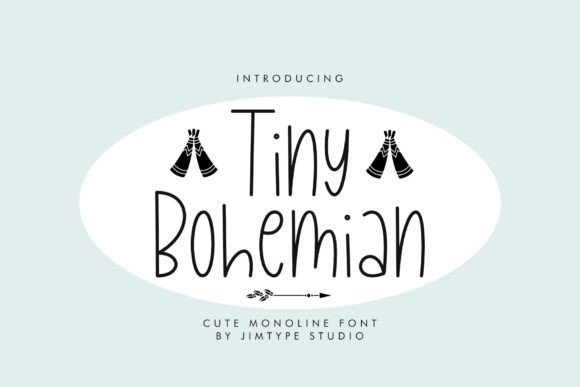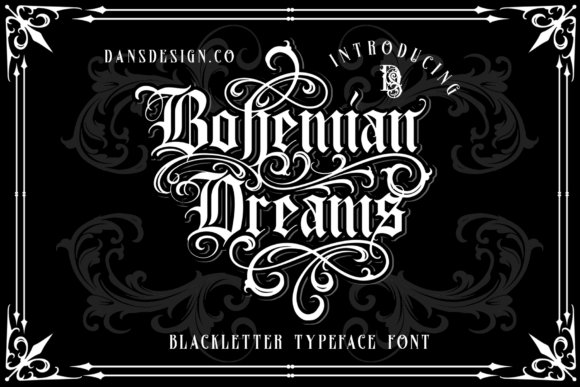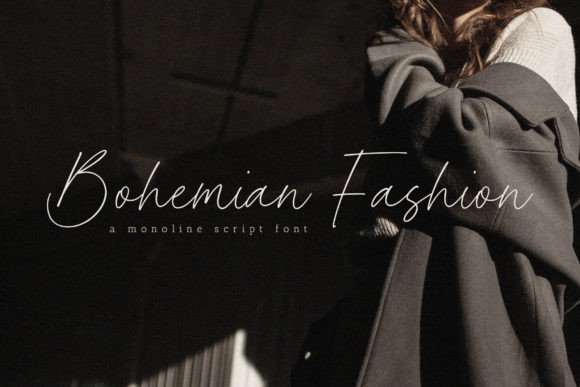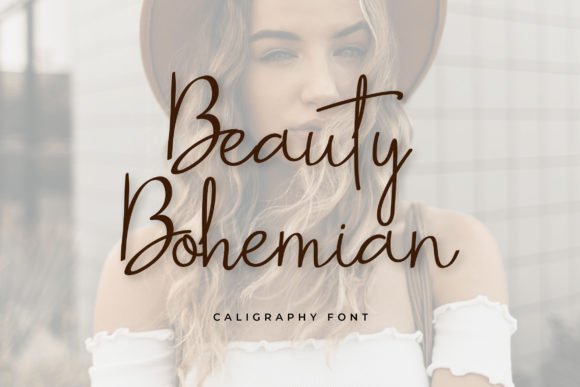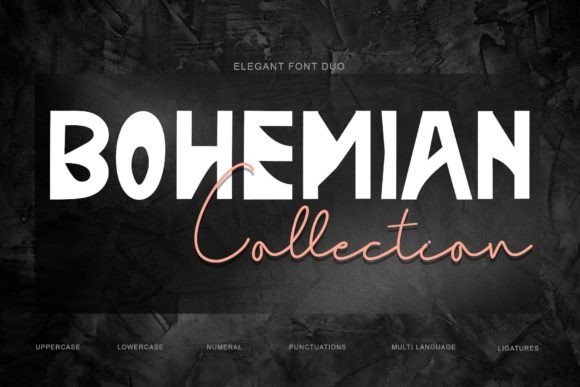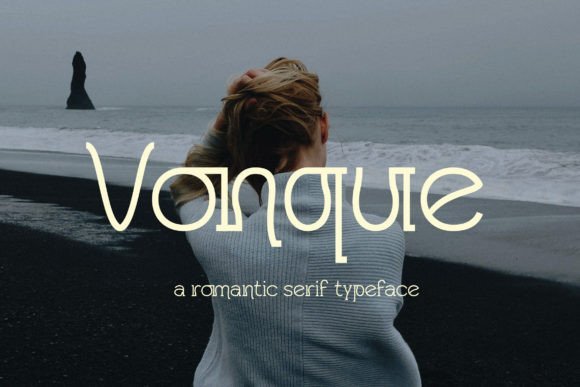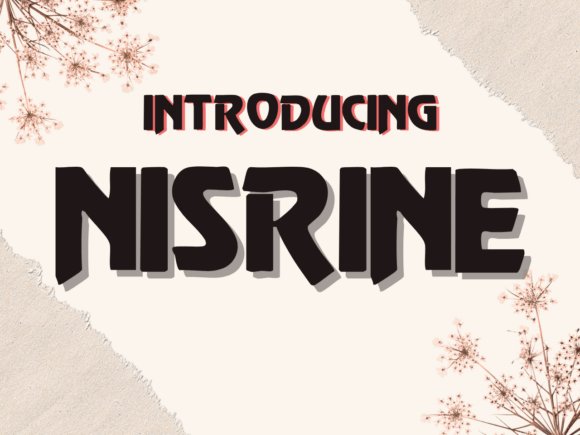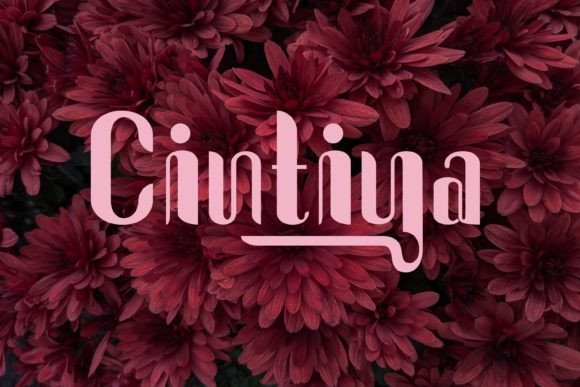
26 Whimsical Bohemian Fonts for Earthy Wedding Invitations and Indie Label Designs in 2026
bohemian fonts bring a relaxed, handcrafted vibe to projects that need warmth and personality. From hand-lettered scripts to worn serifs and decorative glyphs, these typefaces work well on wedding stationery, indie labels, and mood-driven social posts.
This post lists 26 distinct options arranged by style and mood, with quick pairing suggestions, color and texture ideas, and notes on practical legibility so you can match type to project intent.
1. Bohemian Dreams Font
Bohemian Dreams Font
Bohemian Dreams arrives as a bold blackletter display with high-contrast strokes, dense counters, and generous swashes that read like hand-inked signage. The PUA-encoded OpenType file exposes alternate capitals, extended swashes and decorative ligatures directly from your font palette, so you can craft posters, labels, and mastheads with old-world flair without hunting for special panels or plugins.
Among bohemian fonts, this design stands out for a sculpted, calligraphic temperament that balances ornament with legibility at display sizes. It pairs well with a restrained sans for editorial work or sits alone on product packaging to give branding a heritage, artisanal voice that feels deliberately made rather than mass-produced.
My Recommendation: I keep Bohemian Dreams in my toolkit for projects that need a historical, handcrafted attitude-brewery labels, boutique packaging, and event posters all benefit. The PUA swashes are a time-saver during layout, and the heavy weight commands attention on a shelf or poster. Use it when you want a strong, vintage-blackletter personality without sacrificing clarity.
2. Bohemian Typewriter Font
Bohemian Typewriter Font
Bohemian Typewriter blends a typewriter-like serif skeleton with subtle hand-lettered irregularities, producing a warm, slightly nostalgic texture that reads well in headlines and short passages. The letterforms show gentle ink-bleed effects and thoughtful spacing so that magazine headlines, social posts, and web headers maintain a human touch without feeling sloppy. It’s legible across sizes and keeps body lines tidy when set at comfortable leading.
On invitations and lifestyle branding it brings an intimate, romantic character that looks like a personal note rather than a mechanical type slug. Pair it with a clean geometric sans or use on textured papers and linen backgrounds to amplify its handwritten charm for weddings, editorials, and boutique identity work.
My Recommendation: I reach for Bohemian Typewriter when a design needs personality but also readability-wedding suites, lifestyle blogs, and soft-brand identities are perfect fits. The subtle distressing gives compositions warmth without losing polish, and it photographs beautifully on printed materials. If you want a serif that reads like a letter from a friend, this is a reliable choice.
3. Tiny Bohemian Font
Tiny Bohemian Font
Tiny Bohemian is a playful handwritten script with a lively bounce and rounded terminals that read as friendly rather than sugary. It includes alternate characters and modest ligatures to keep repeated words from feeling monotonous, which is ideal for logos, product tags, and craft files intended for Cricut and vinyl cutting. The consistent stroke width helps the type maintain personality even at small sizes.
Because strokes are fairly uniform and clean, the face cuts well in paper and vinyl and holds up online for blog headers and social graphics. Use it alone for charming labels and stickers, or pair it with a neutral serif to give product packaging and kids’ goods an immediate handcrafted signature.
My Recommendation: I use Tiny Bohemian for playful brand marks, children’s packaging, and any craft-focused piece where charm matters. The alternates prevent repetitive chains of the same shapes, and it trims neatly on cutting machines. It’s my go-to when projects need a hand-lettered feel that stays readable and cute at small scales.
4. Vintage Bohemian Font
Vintage Bohemian Font
Vintage Bohemian is a display typeface that blends bold charm with a light, handmade feel. Its irregular strokes and playful counters give headlines a cheerful personality while remaining legible at large sizes. Collectors of bohemian fonts will appreciate the hand-drawn ornaments, alternate glyphs, and textured caps that read like vintage signage.
The family includes uppercase, lowercase, numerals, punctuation, a selection of stylistic alternates and ligatures, with kerning tuned for expressive headings. OpenType options let you swap in swash capitals without manual adjustments, and the lighter stroke weight pairs well with textured papers or grain overlays. Use it with a restrained sans or thin serif to keep layouts readable while letting the type carry character on posters, labels, and boutique signage.
Try a shortlist of three to five families from the 26 entries and test them in real layouts; contrast, spacing, and scale will determine whether a font reads rustic, romantic, or modern. Small treatments like ink textures, paper choice, or subtle distressing can shift the entire feel.